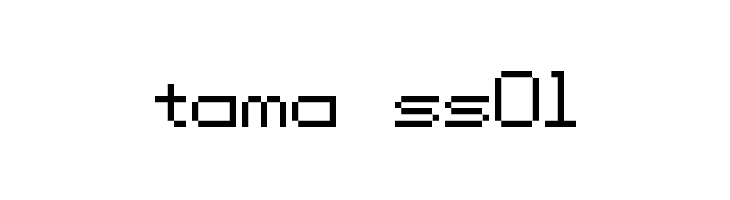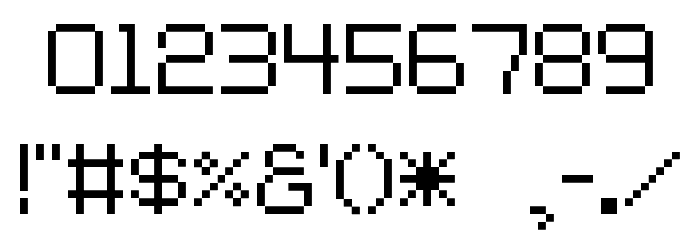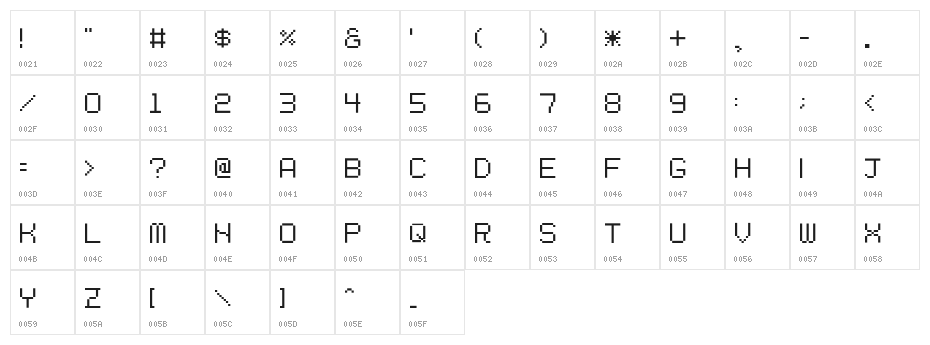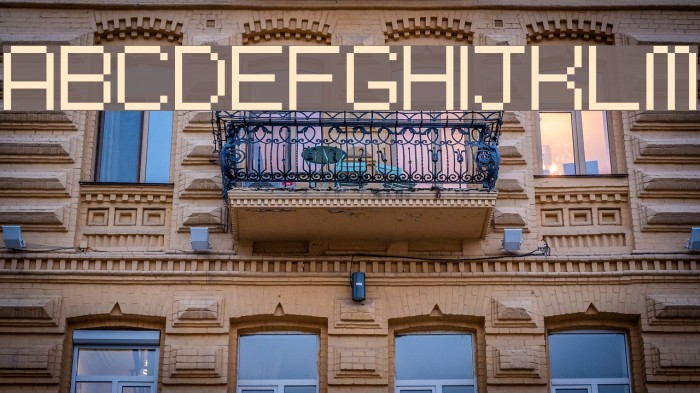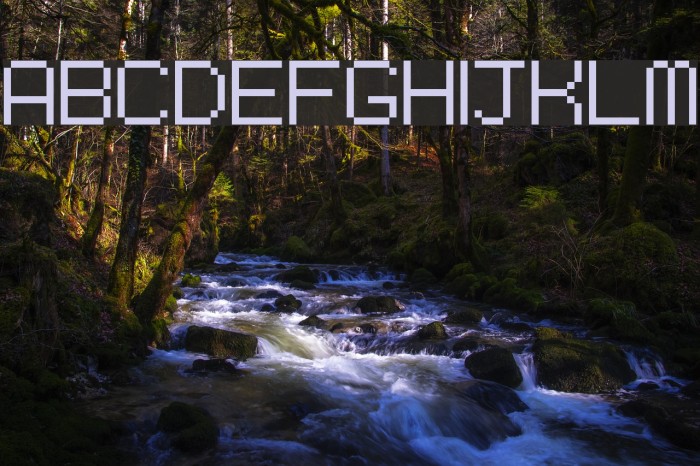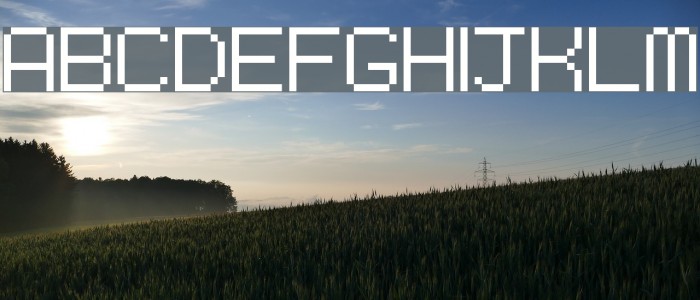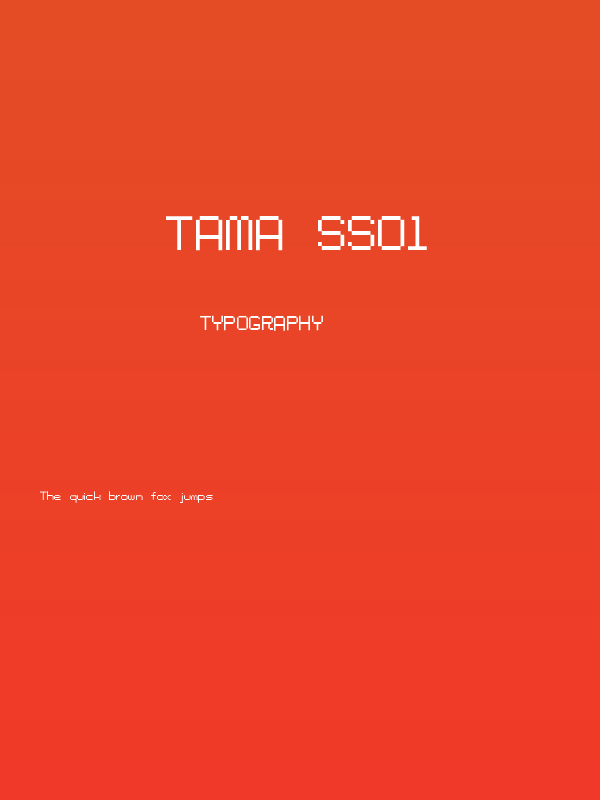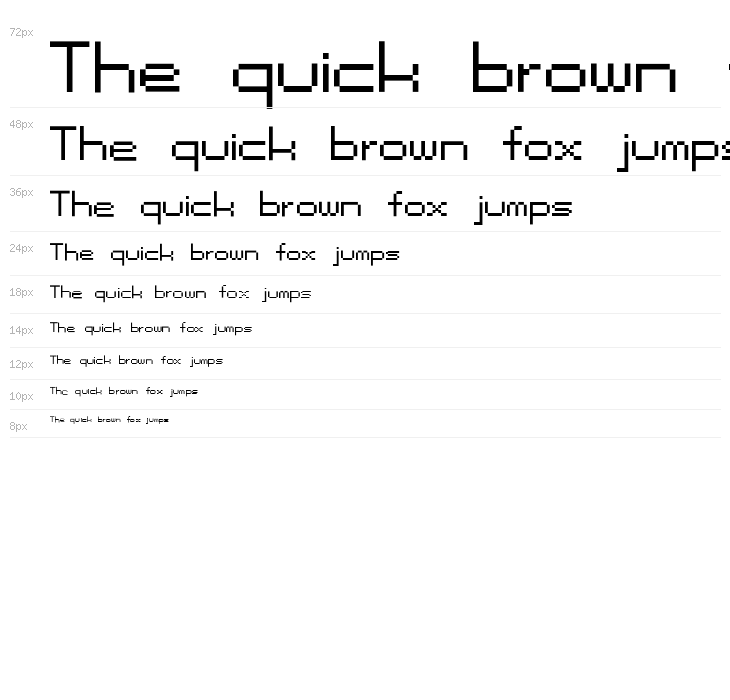
tama ss01 Font
tama ss01 Description
This font features a distinct pixelated style, reminiscent of early digital displays and retro video games. Each character is constructed with a grid-like precision, giving it a blocky and geometric appearance. The uppercase and lowercase letters maintain a consistent height, enhancing the uniformity of the design. Numbers and special characters follow the same pixelated theme, ensuring a cohesive look across all elements. The font's simplicity and clarity make it highly legible, even at smaller sizes. Its unique aesthetic is both nostalgic and modern, appealing to those looking for a digital or tech-inspired typeface.
Overall StyleRetro, Digital
Use CaseHeadlines, Logos, Digital displays
Proposed ProjectsIdeal for video game design, tech-themed posters, digital art projects, and retro-style branding.